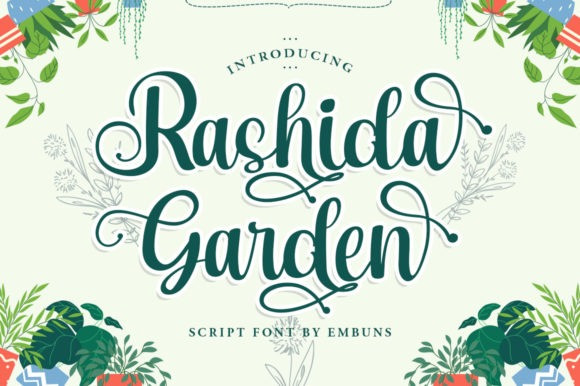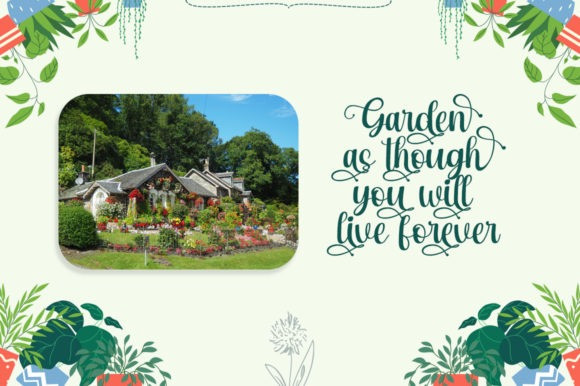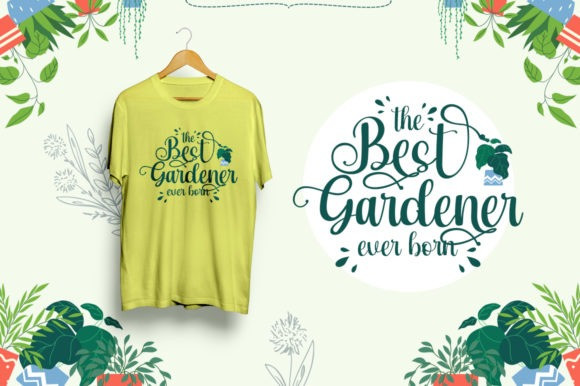
Rashida Garden Script Font
Rashida Garden is a beautiful and flowing handwritten font. It looks beautiful on a variety of designs requiring a personalized style, such as wedding invitations, thank you cards, weddings, greeting cards, logos and so on.